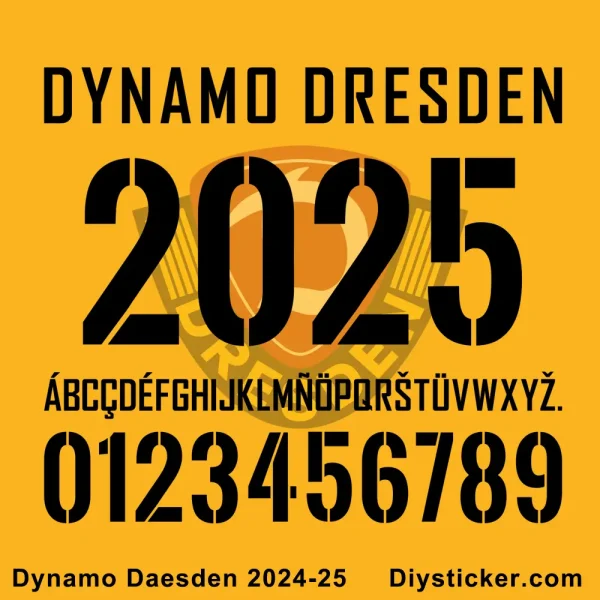
Dynamo Dresden 2024-25 Font Vector Files
Introducing the official Dynamo Dresden 2024-25 Font Vector Pack – the complete typography solution for designers, fans, and clubs. This digital download features the authentic typeface used in Dynamo Dresden’s 2024-25 season branding, delivered in multiple editable formats for ultimate versatility.
Perfect for creating logos, posters, merchandise, fan art, social media graphics, and more. Capture the spirit of Dynamo Dresden with this clean, bold, and versatile typeface.